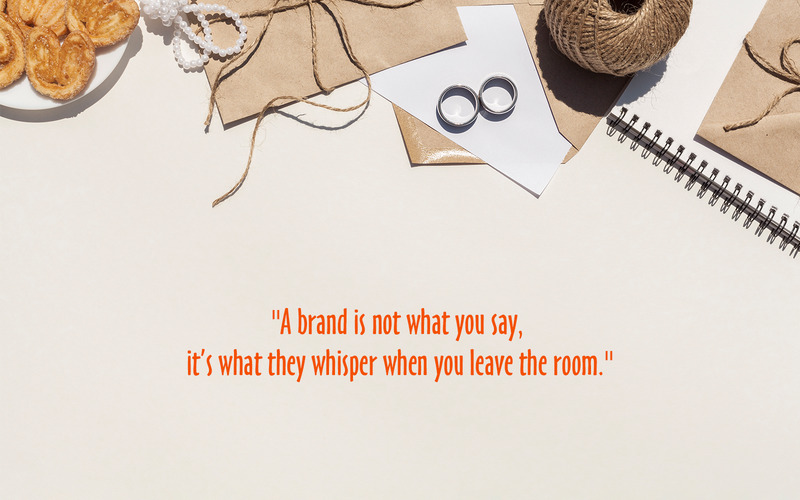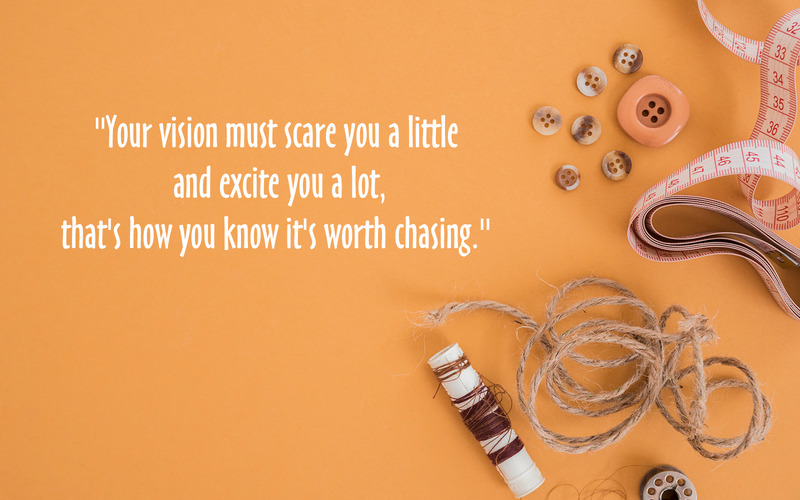
Say hello to HandiSoft — where retro nostalgia meets handmade charm.
This font brings back the magic of ‘90s screens with a crafty, personal touch.
Perfect for playful branding, indie projects, or nostalgic interfaces.
Its quirky curves and soft edges spark joy in every letter.
Whether you're designing posters, labels, or UI art — it adds instant personality.
Make your words feel fun again — HandiSoft delivers digital delight.